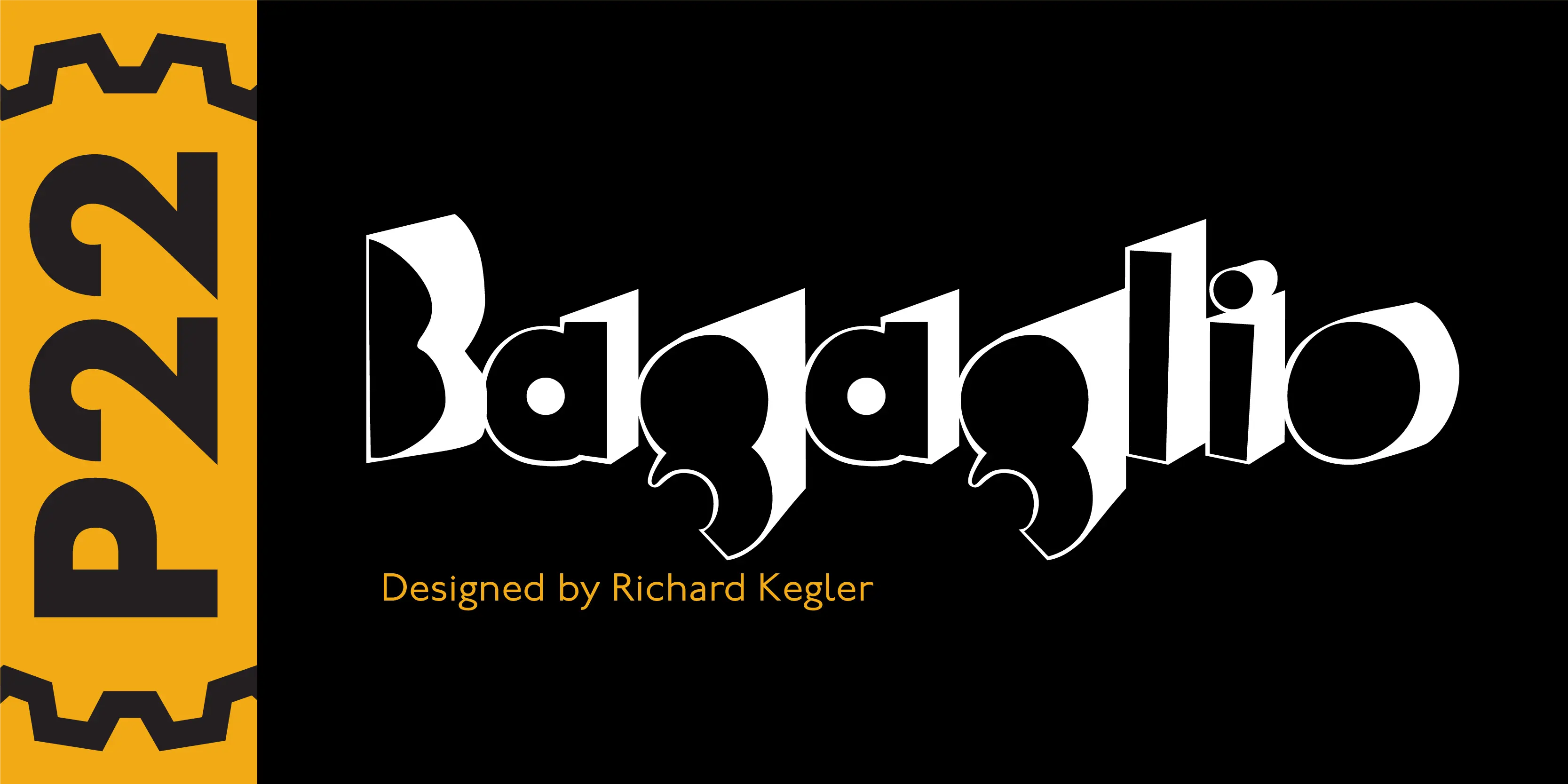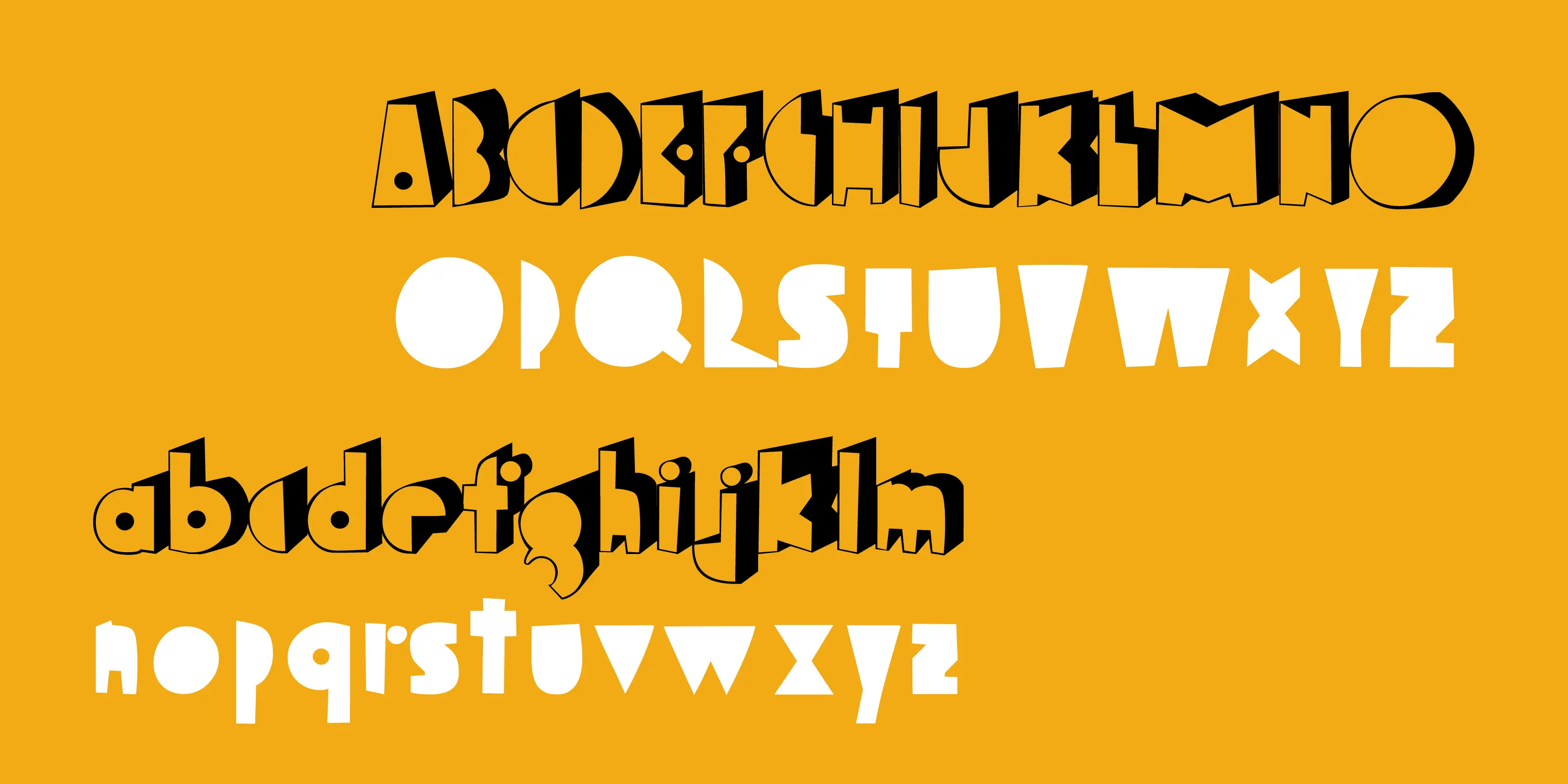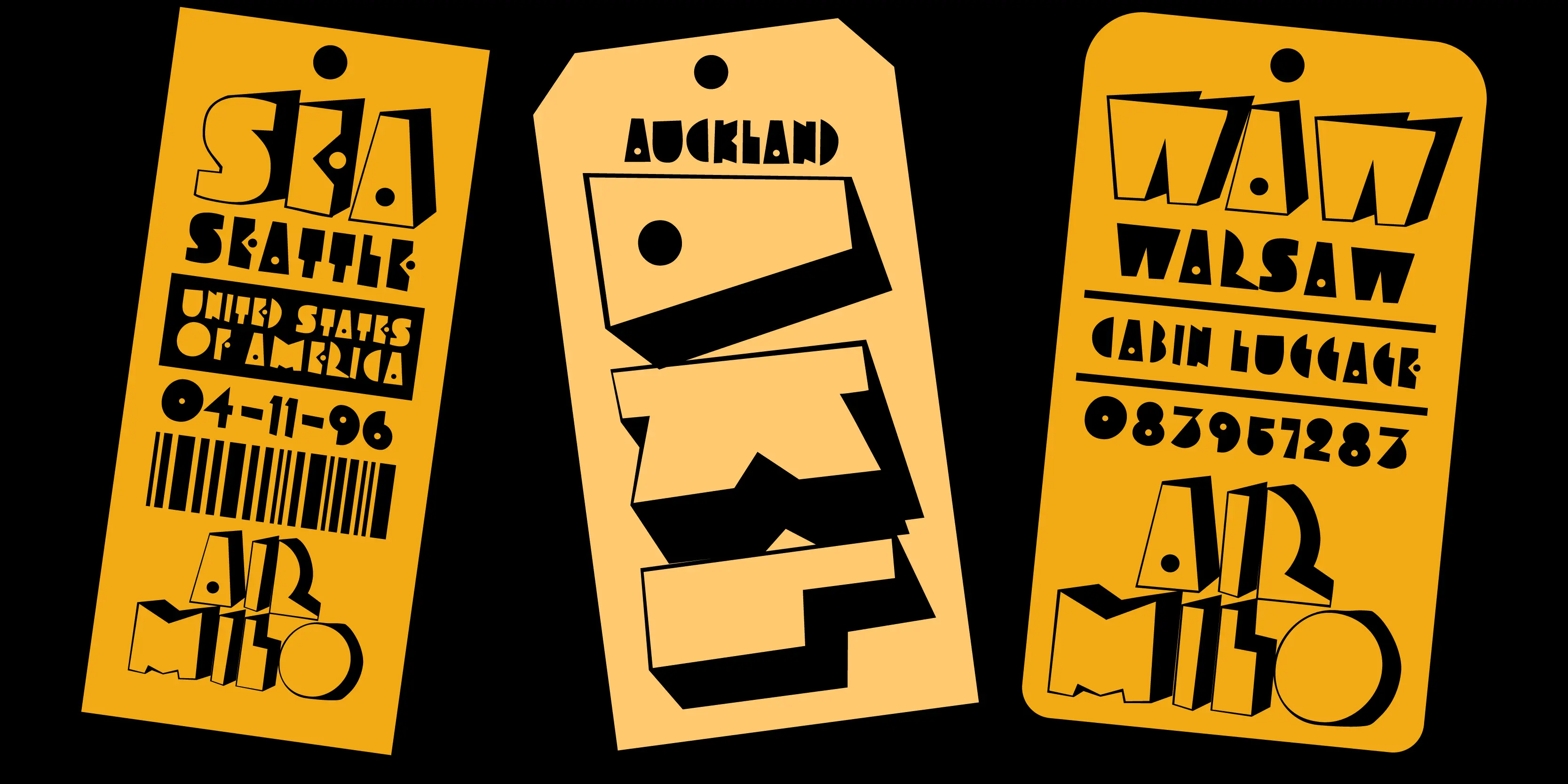
Bagaglio Fonts
Bagaglio 3D
Bagaglio Flat
Bagaglio
A mysterious 1930s Italian luggage tag inspired Bagaglio. Given its historical and geographical origin, this rough-hewn font could be considered a cousin to the P22 Il Futurismo font.